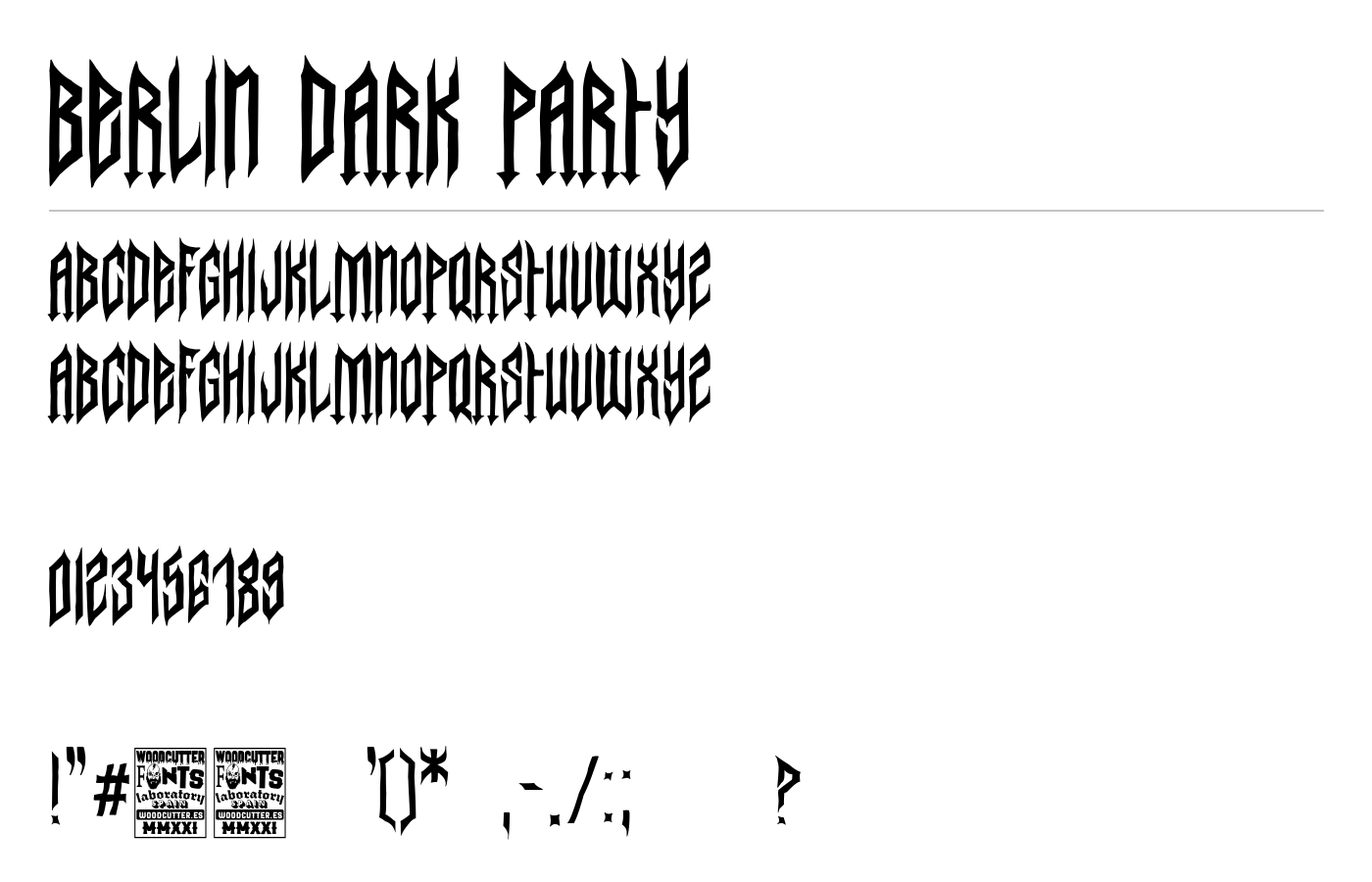
Berlin Dark Party is an edgy, condensed display font with sharp, angular strokes and a gothic-inspired style that evokes a dark, mysterious atmosphere. Its tall, narrow letterforms with pointed serifs make it perfect for bold headlines, event posters, or branding that aims to convey intensity and an underground, dramatic vibe. This striking font works best where eye-catching, impactful style is key, rather than for long body text.
Berlin Dark Party Font
About Berlin Dark Party Font